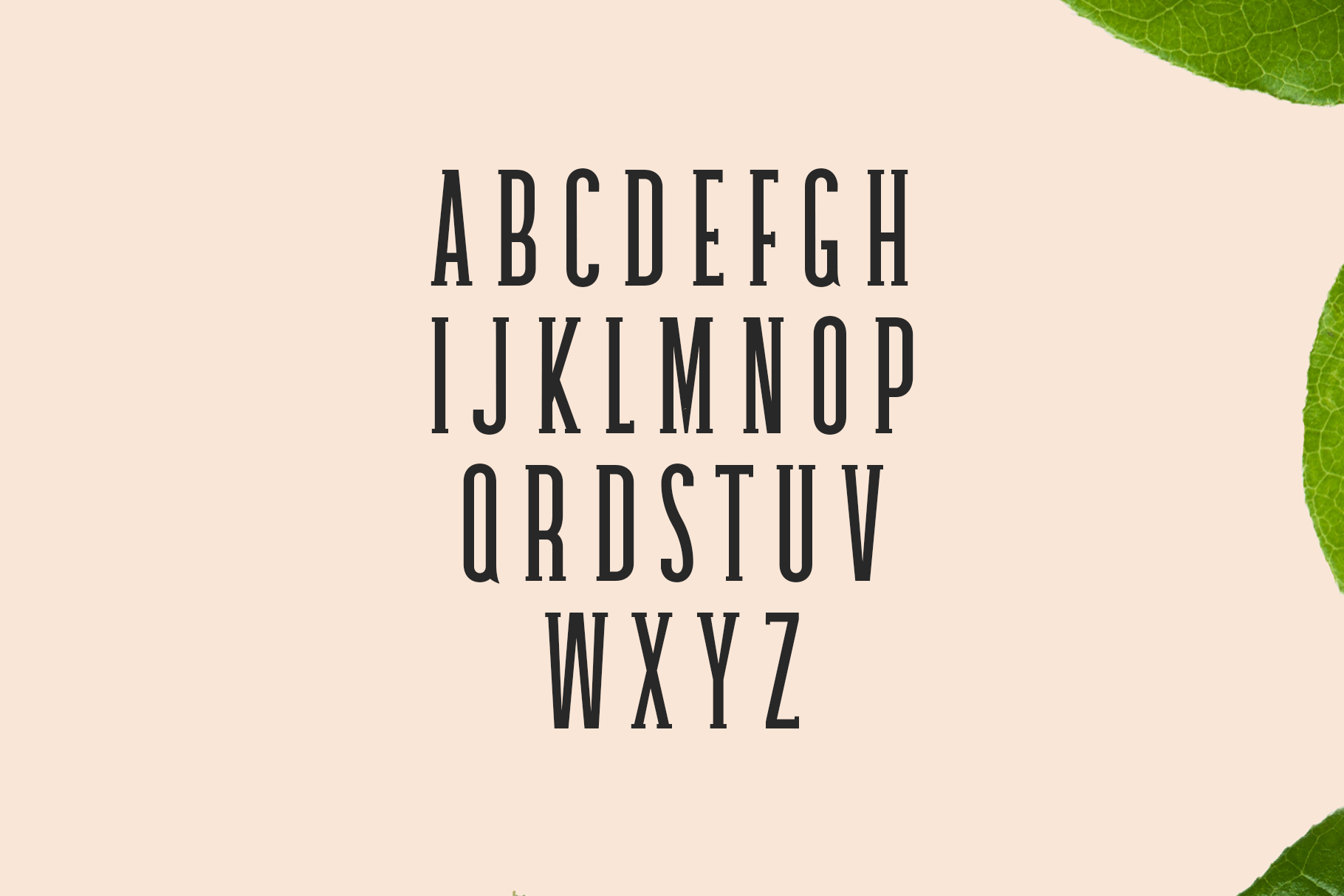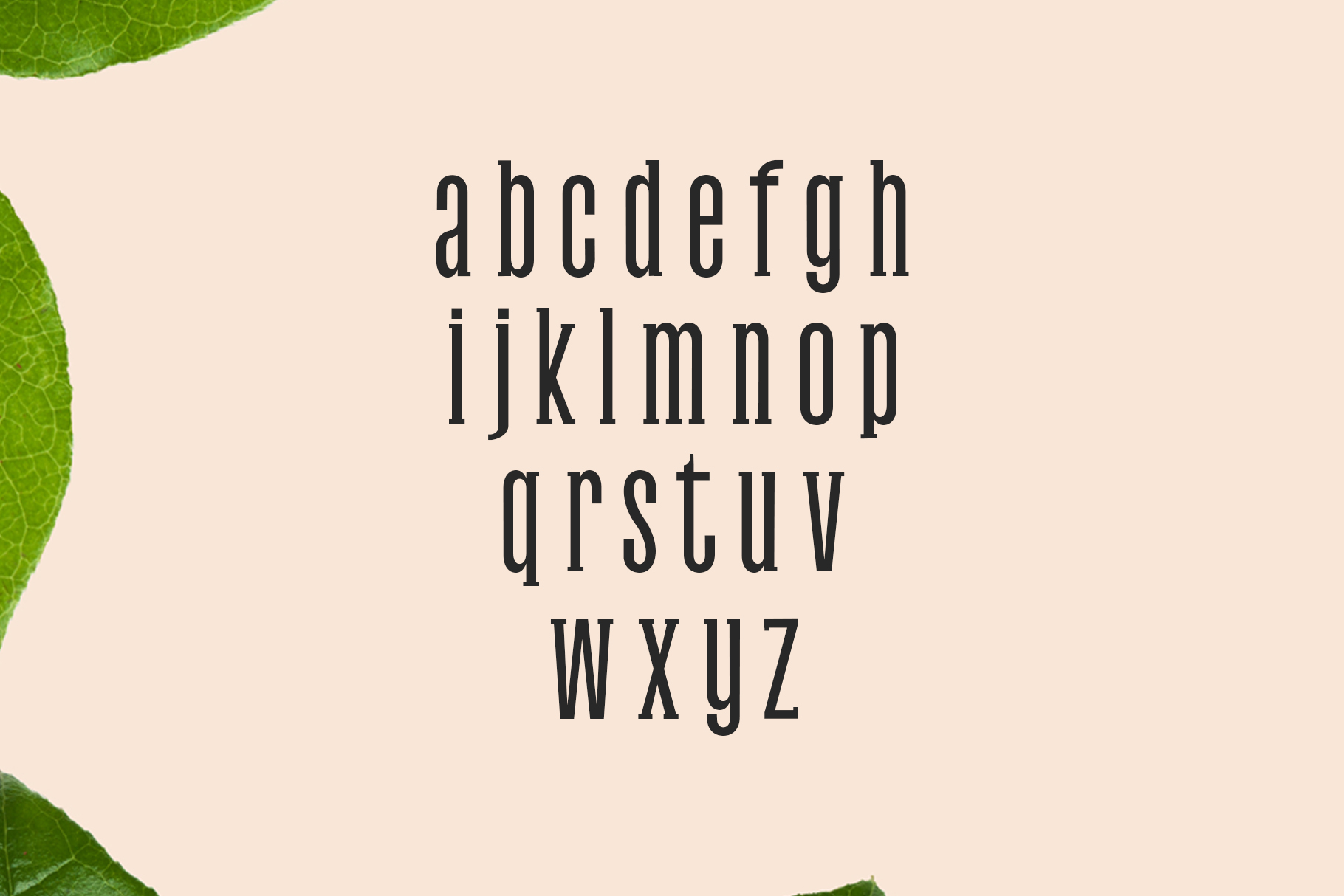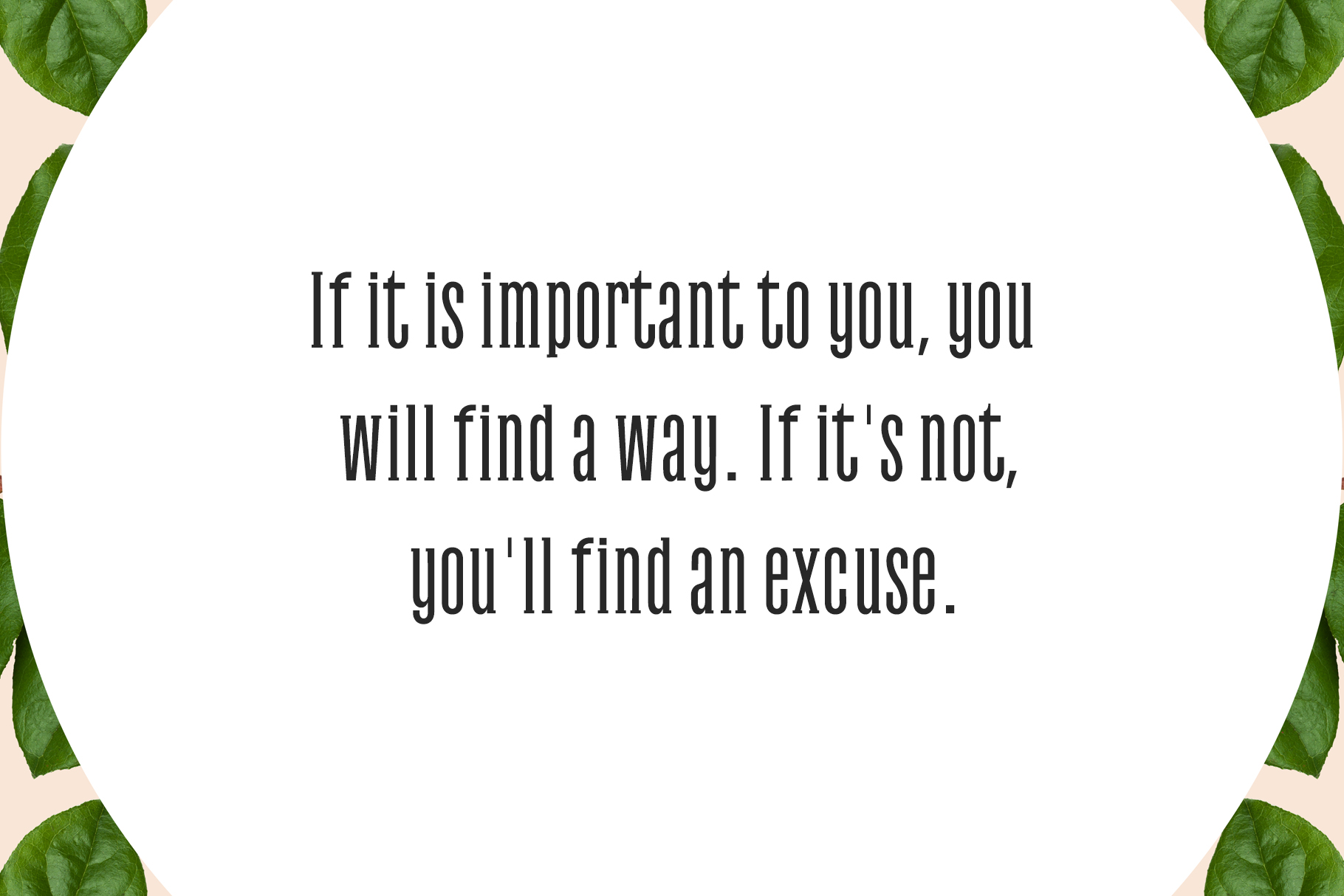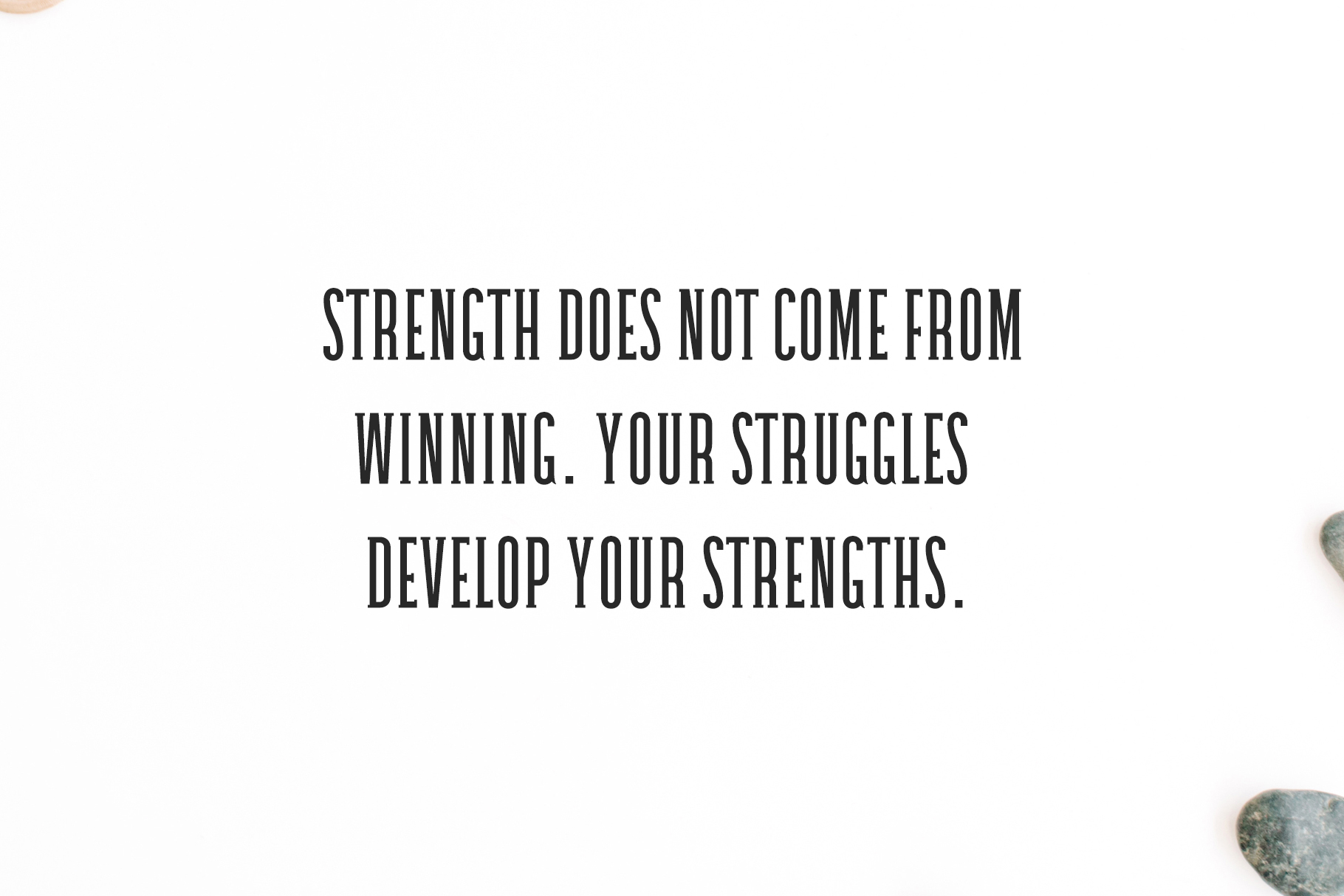
About Galvin Family Pack
Galvin is a unique slab serif font that is perfect for a wide range of projects and styles. This is an extremely clean and sharp font, and skirts the line between classic and modern.